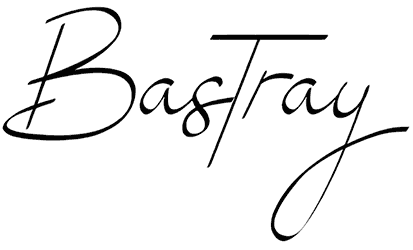
Let’s try a winsome and minimal face for your modern design and show off your innovative mind. Butterfly is a handwritten font with a real and casual mood that nicely fits for diverse subjects. Place this brush lettering font on your upcoming projects, from banners to social media posts, and create an eye-catching mood.